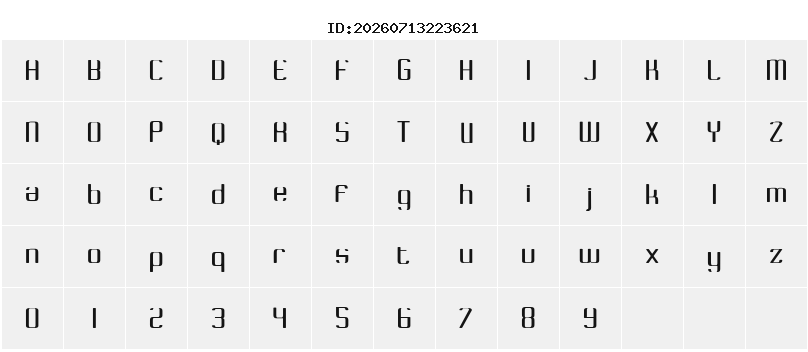
• Font Name: Cafe Noiré BV
• Full Font Name: Cafe Noiré BV
About Cafe Noiré BV.ttf
Cafe Noiré BV.ttf is a modern, elegant sans-serif font designed for ultimate readability and visual harmony. Perfect for branding, headlines, web design, and print materials.